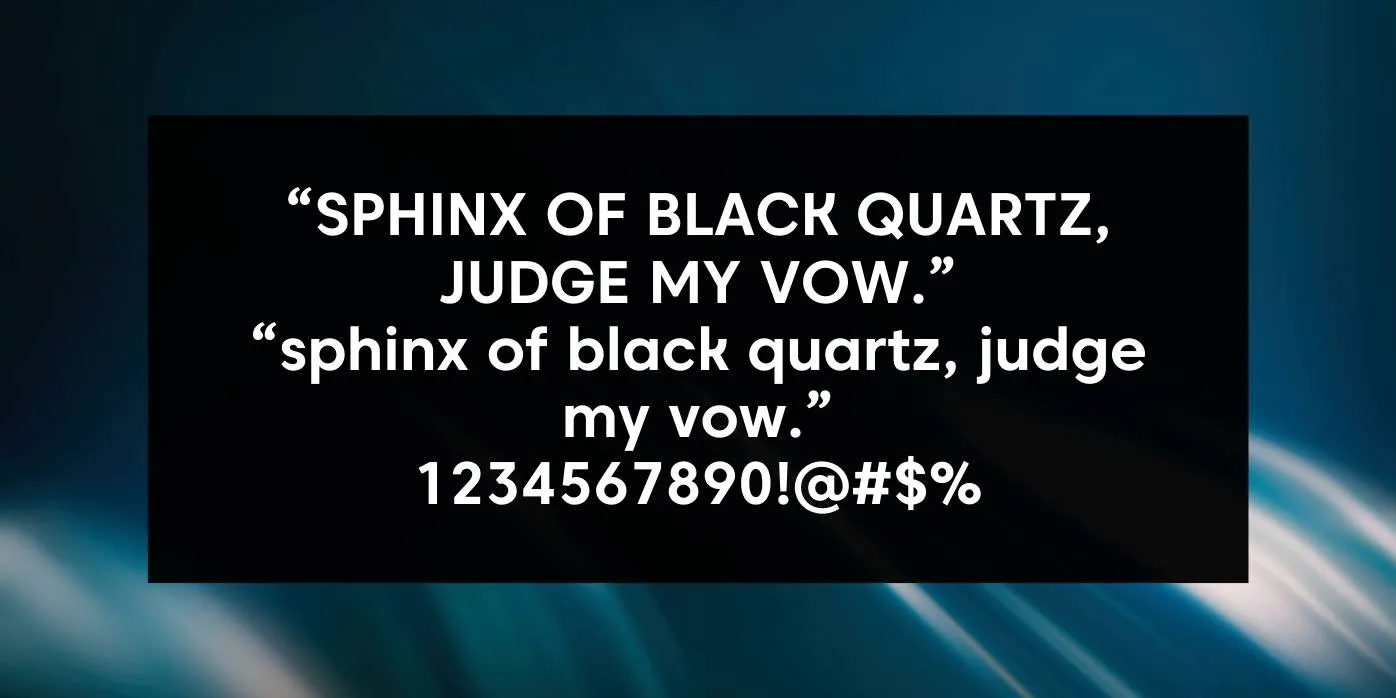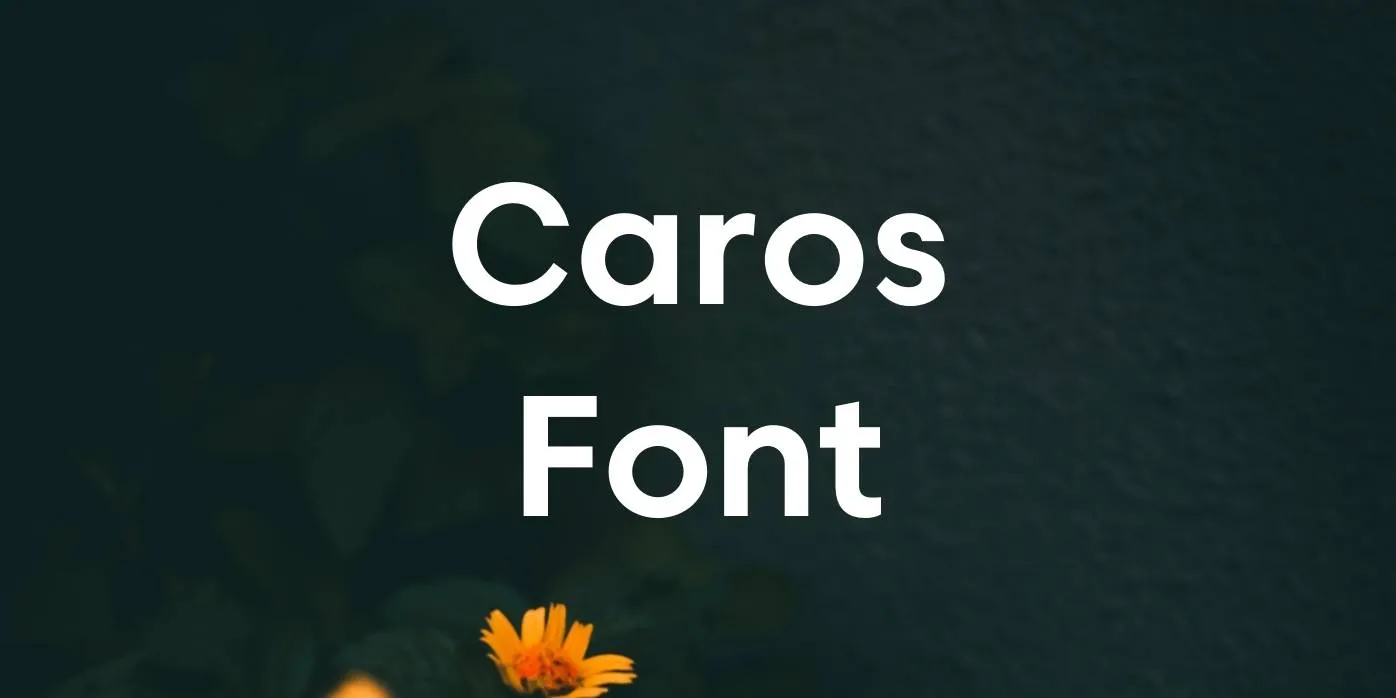
Caros Font
Today we introduced another sans-serif typeface that is a totally simple, clean, and highly readable font family. The Carlos font family is Designed by Hyun-Seung Lee and Published by retype. That font family is a simple type font family, In this font family, there are 18 fonts available. They consist of 9 different weight Such Regular, Bold, Extrabold, Thin, Extra Thin, Light, Heavy and Black, etc, and all weight is available with their italics.
So that typeface is usable for any type of work Such as Bold is used for headings etc Or Regular and thin type font style is used for paragraphs. The Individual character spacing in that typeface is simply adjusted and that creates design perfect character setting. That typeface is released in 3rd march 2017. This font is very close to the core sans font.
That typeface has contained different character set such as European 1250, Complete Latin 1252, and Turkish Character 1254.  And they support all all-languages Such as English, Greek, French, Irish, Hungarian, Russian and Romanian, etc. Usage Looking at the usage of that typeface, So the designers used that type of simple and clean font, especially for web pages, Screen displays, Books, and so on. Caros typeface is used by students to write their different projects, for example, To write assignments, Project theses, etc.
Caros typeface is a sans-serif type font family whose character spacing and simplicity make them the highly demanding typeface, The designers used that type of font for designing, or used it perfectly for paragraph writing and resume writing. And in the designing platform Canva, Photoshop, CorelDRAW, or any type of designing purposes, You can easily download it from our site. And if we make a combination with another font So Used Caros Font as a Headliner in any of your designs. Caros Font View Font Information Edit NameCaros Font DesignerHyun-Seung Lee StyleSans Serif TypeOTF,TTF LicenseFree for personal use Download Caros Font This gorgeous typeface is best for many designs so you will have to download it by clicking on the given button.
What type of font has Caros Font? That typeface family is a Simple sans-serif type font family, That typeface is clean, High readable, and simple. That character has been designed without any type of decorative style. How many styles are available in Caros Font?